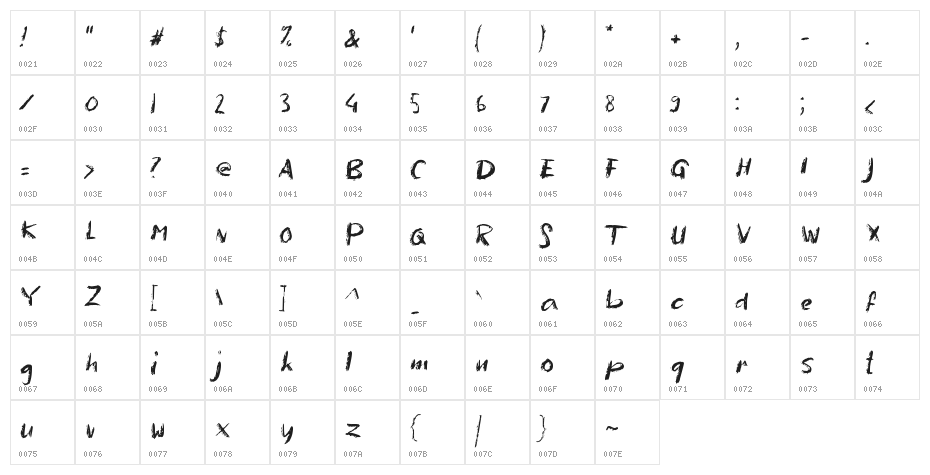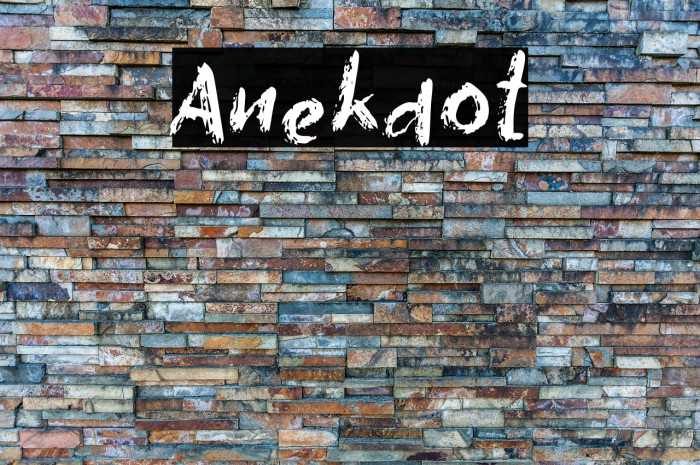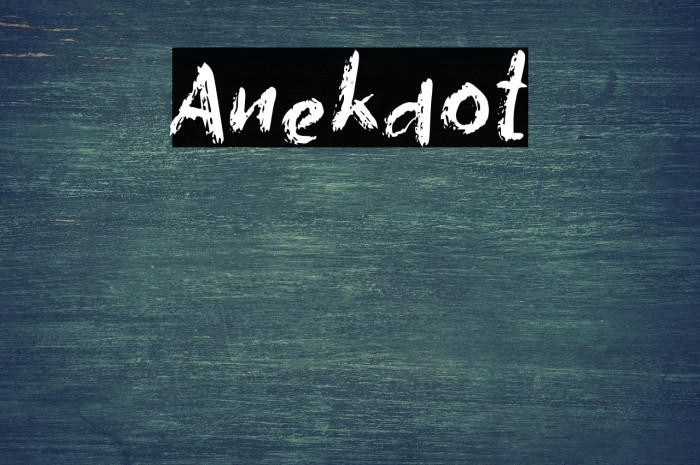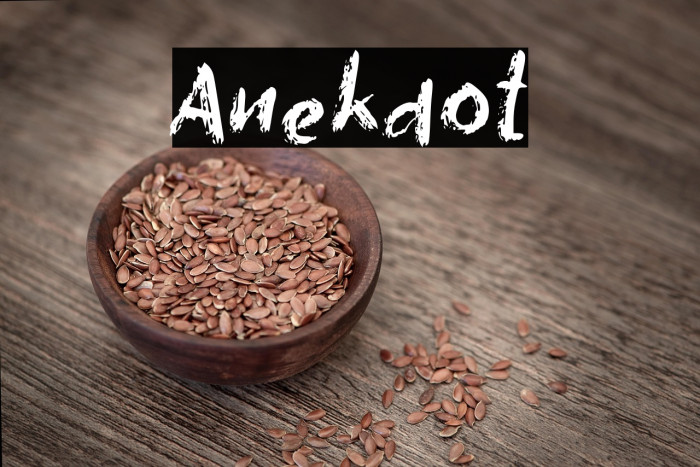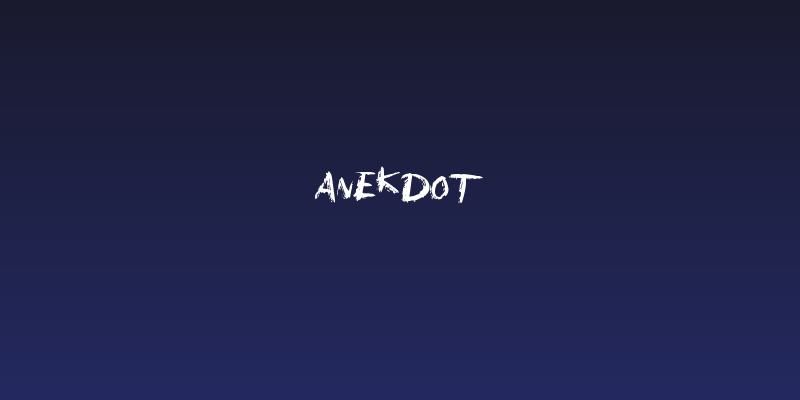
Anekdot Font
Anekdot Description
This font features a bold, expressive style with a brush-like texture that gives it a dynamic and energetic appearance. The strokes are irregular and have a hand-painted feel, creating a sense of movement and spontaneity. Each character is unique, with varying thicknesses and a slightly distressed look, adding to its artistic and informal charm. The uppercase and lowercase letters maintain a consistent style, while the numbers and special characters complement the overall design. This font is ideal for projects that require a creative and bold statement.
| Proposed Projects | Ideal for posters, album covers, branding, and any creative projects that require a bold and artistic touch. |